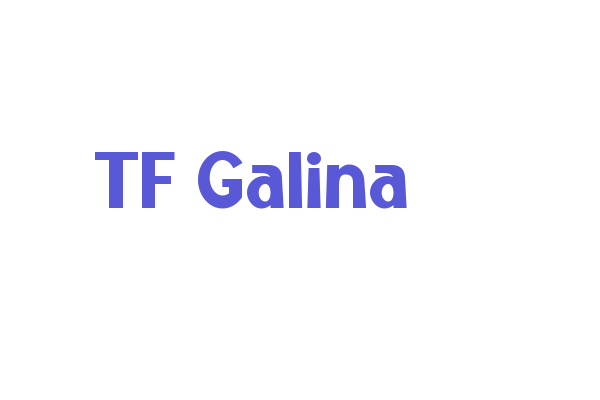
TF Galina is a modern sans-serif font designed by Teenage Foundry. With a clean and simple style, this font is perfect for a wide range of design projects. Its versatility makes it ideal for both digital and print applications, making it a must-have for any designer looking for a sleek and timeless typeface.
Font Name: TF Galina
Designer: Teenage Foundry
Font Family: TF Galina